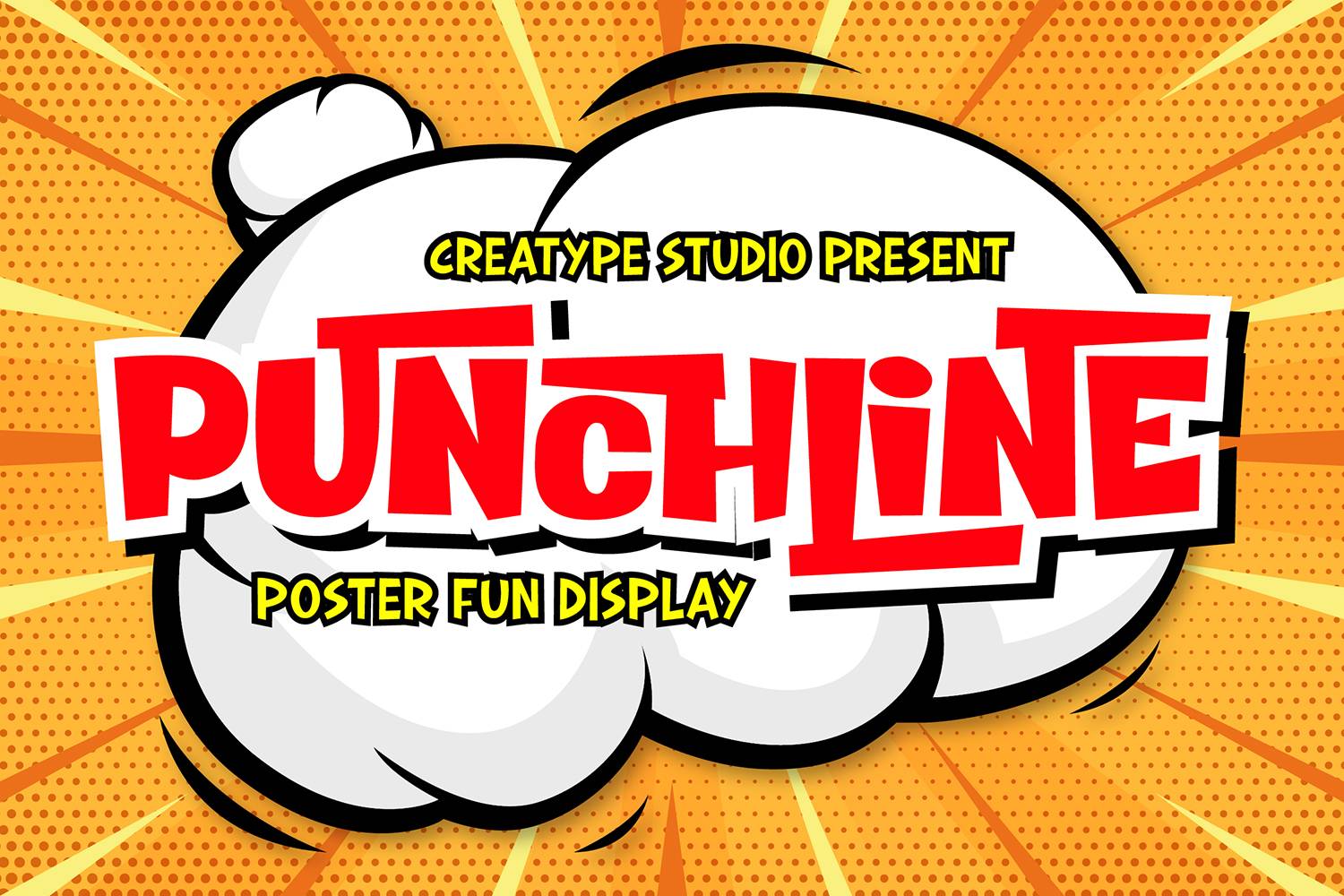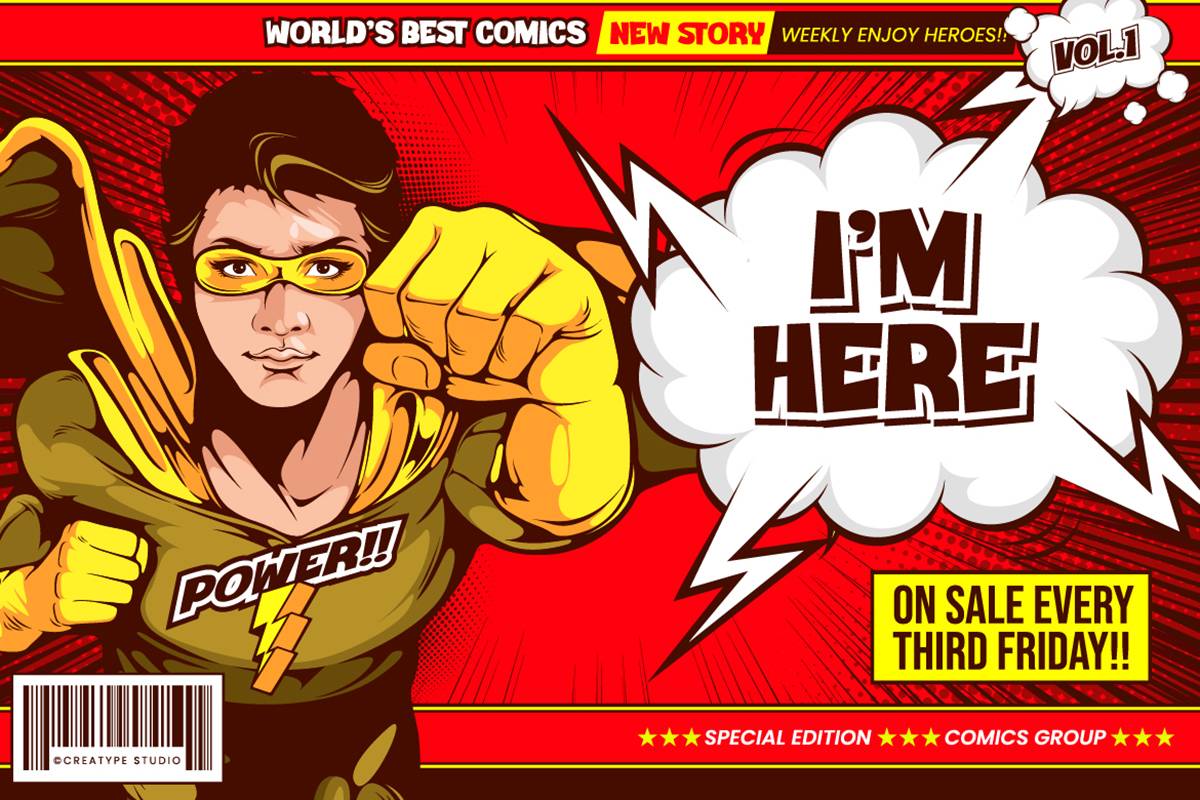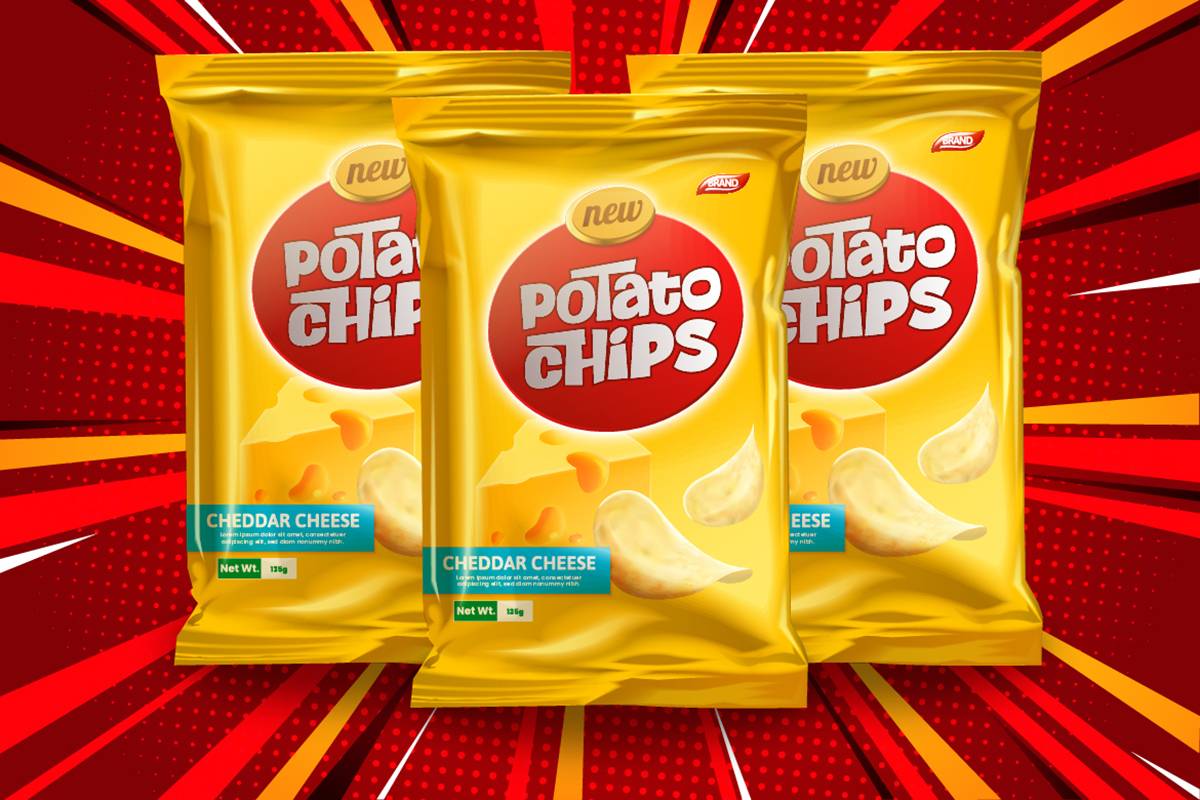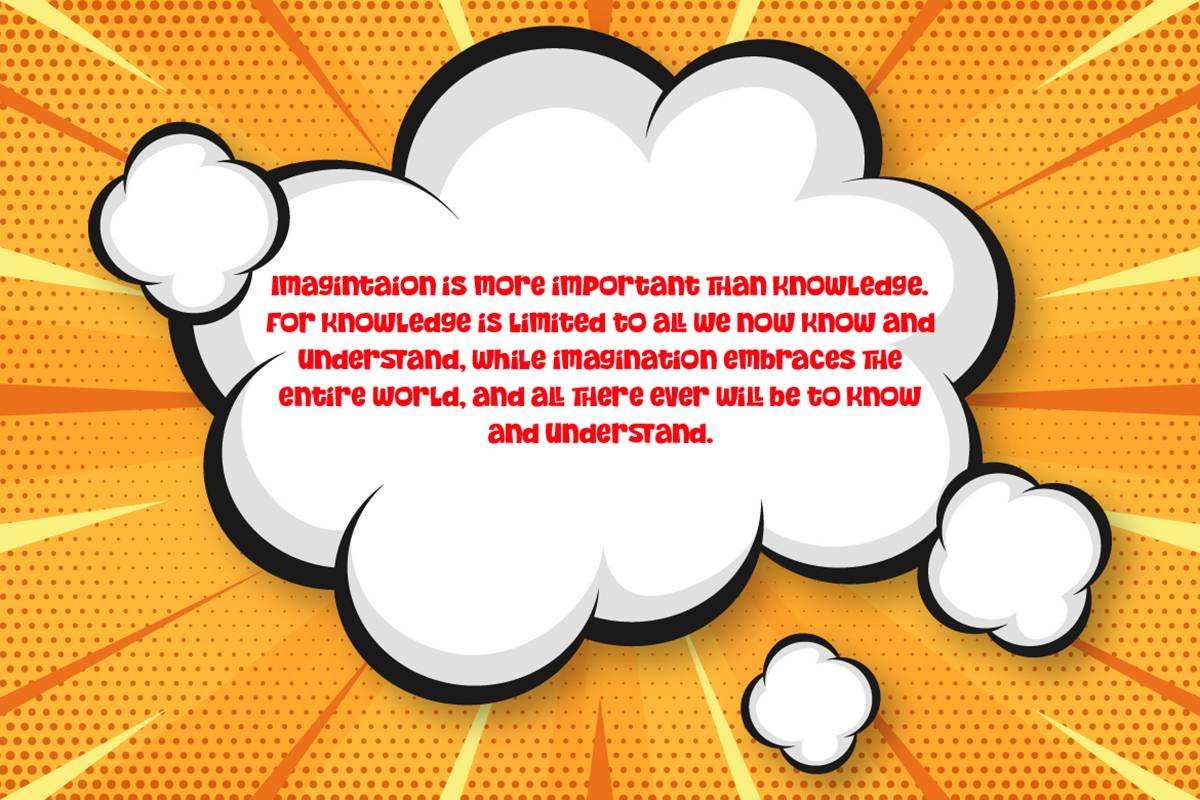
Punchline is a bold, playful sans serif font with a lively, uneven baseline that adds a fun and quirky character to its strong, rounded letterforms. Its thick strokes and slightly condensed width make it perfect for eye-catching headlines and creative design projects that need a friendly, energetic vibe. This font works especially well for children’s books, posters, and branding that aims to convey a lighthearted, approachable personality.
Punchline Font
About Punchline Font
| Font family | Punchline Font |